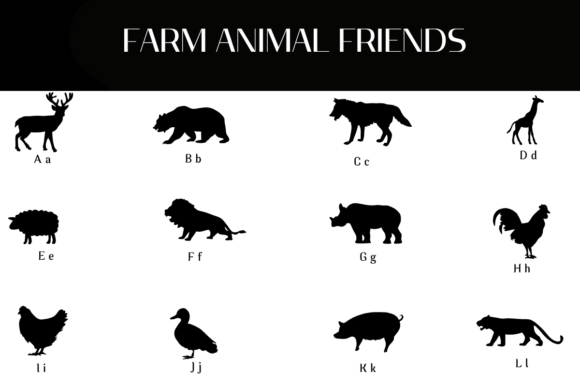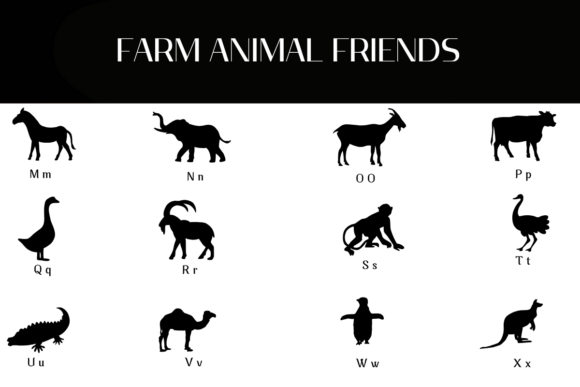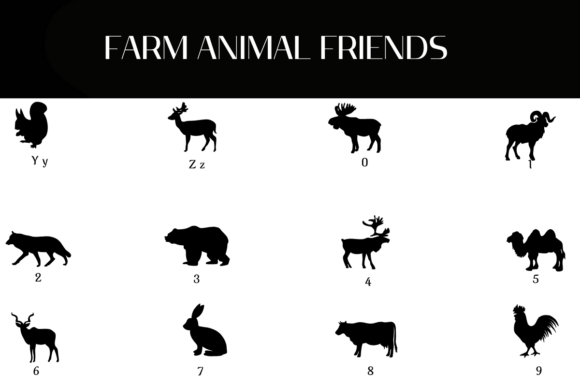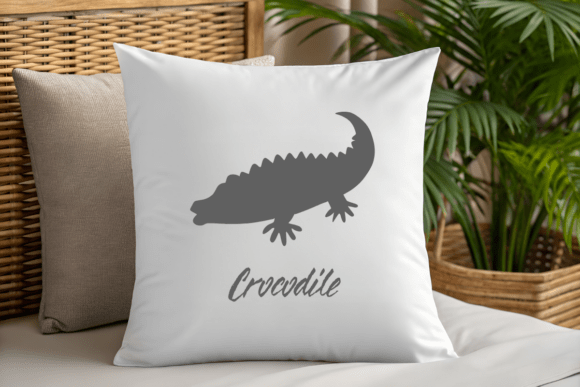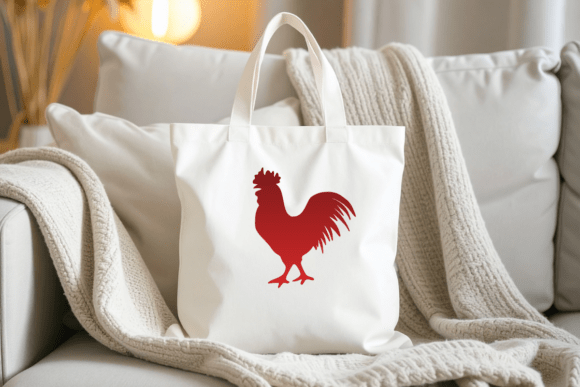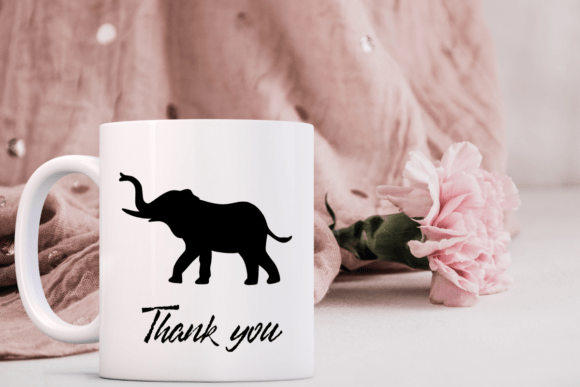
Introduction to Farm Animal Friends Font
Farm Animal Friends – Dingbats Font Farm Animal Friends is a fun and practical dingbat font filled with charming animal silhouettes.
Featuring cows, chickens, deer, rabbits, camels, monkeys, birds, and more, this Farm Animal Friends collection is perfect for educational worksheets, farm-themed party invites, zoo signage, children’s books, and rustic packaging The Farm Animal Friends font includes a range of both farm and exotic animals, making it a valuable asset for any designer working with wildlife or animal-centered content.
Key Features of Farm Animal Friends Font
Why Choose Farm Animal Friends Font?
Farm Animal Friends Font offers exceptional quality and versatility, making it a valuable addition to your design toolkit. Whether you’re creating for personal projects or commercial use, Farm Animal Friends Font delivers professional results.